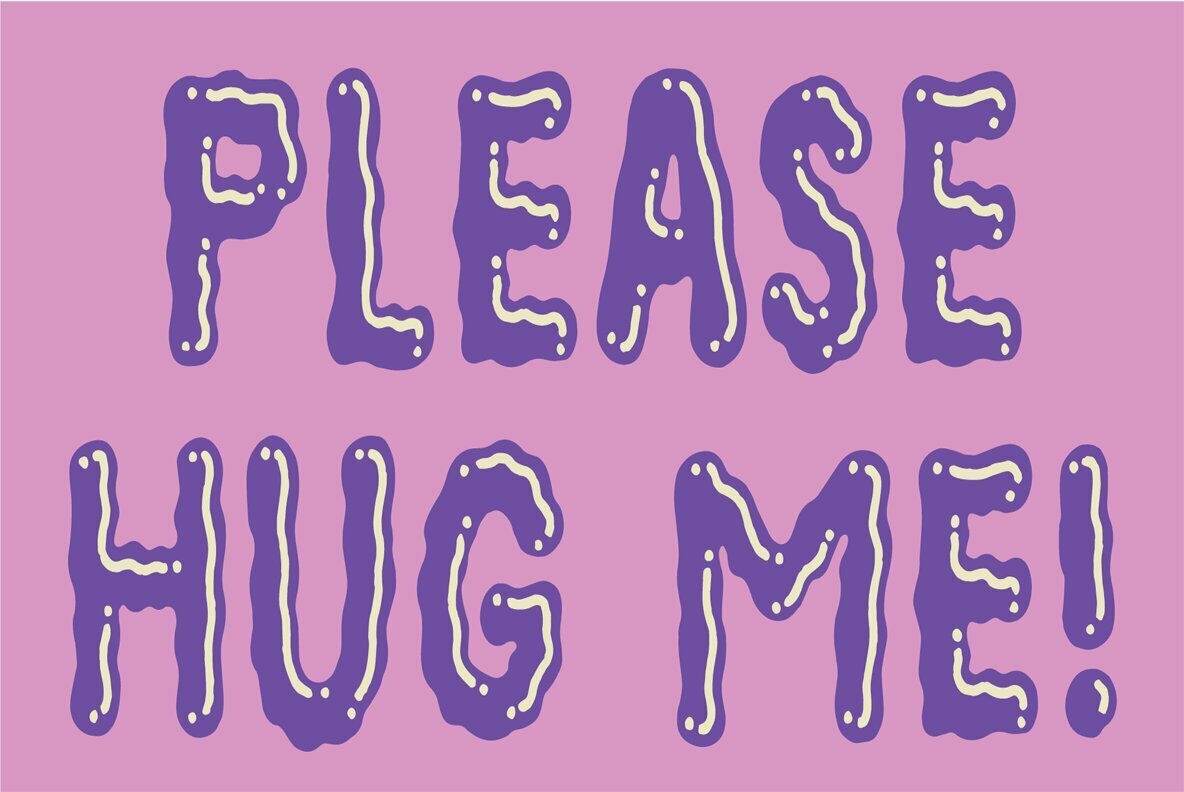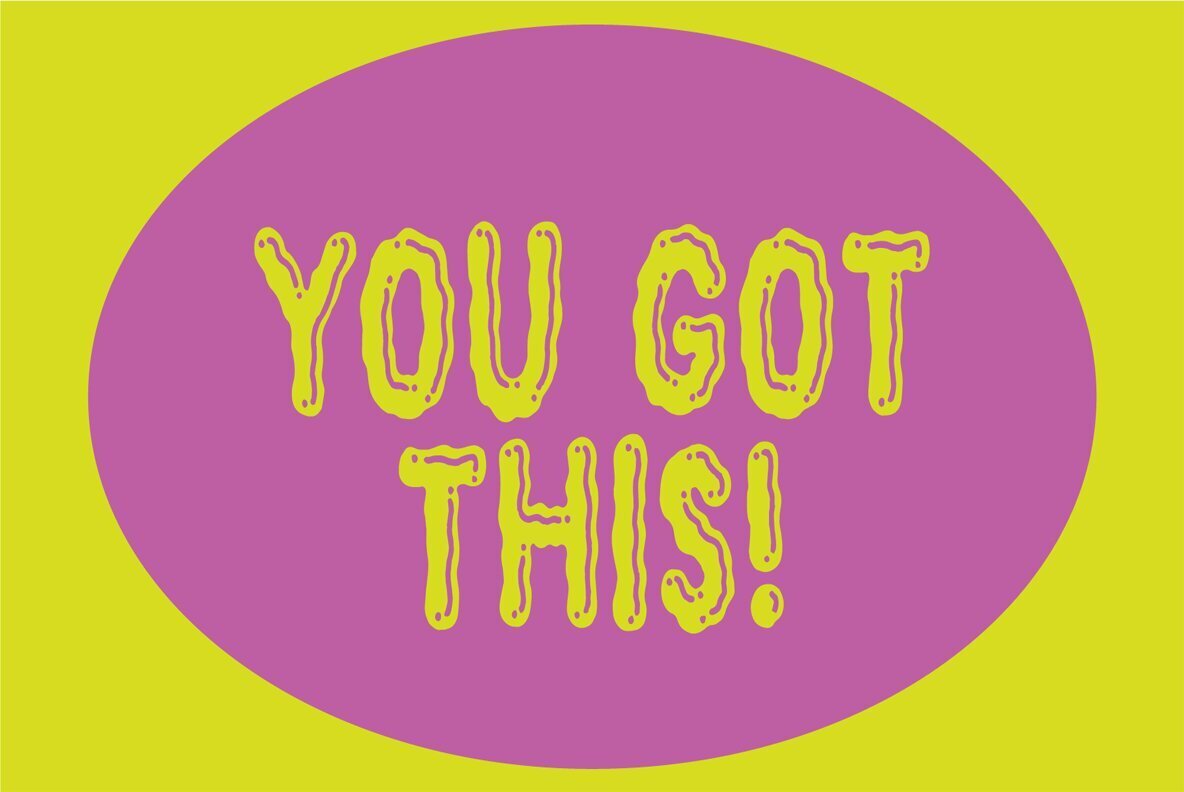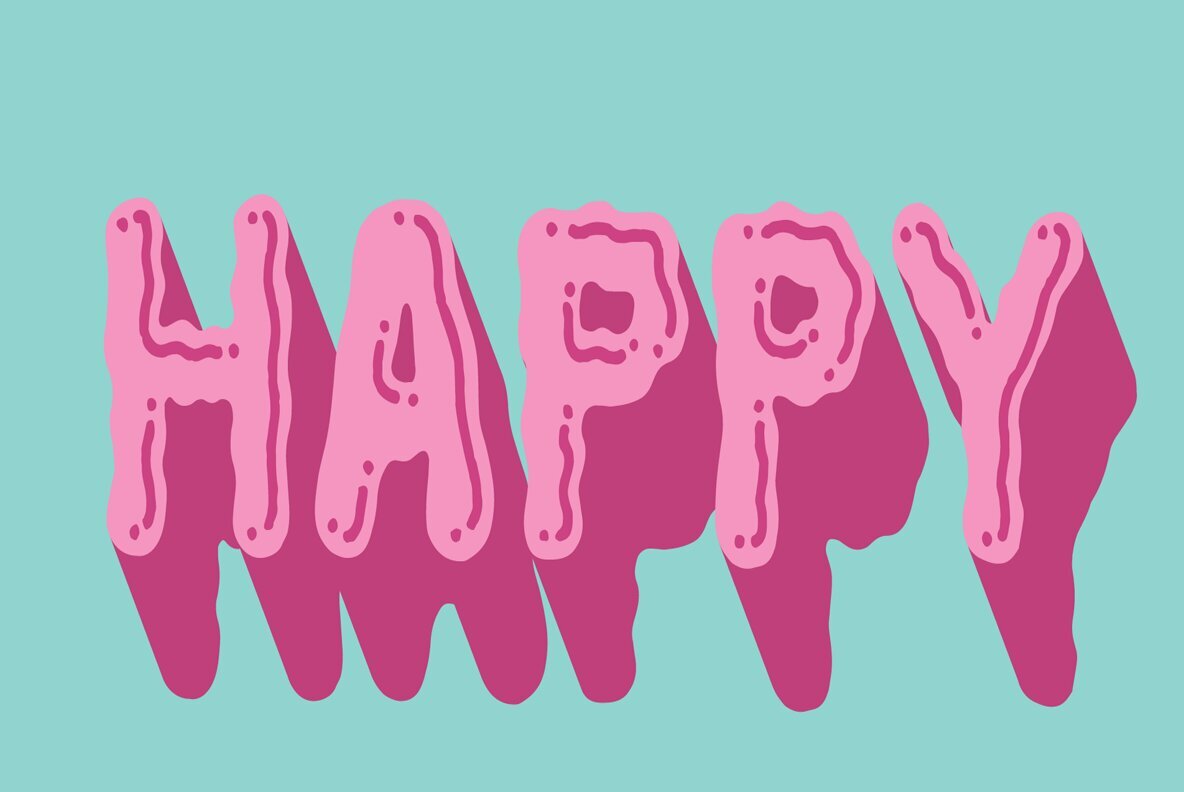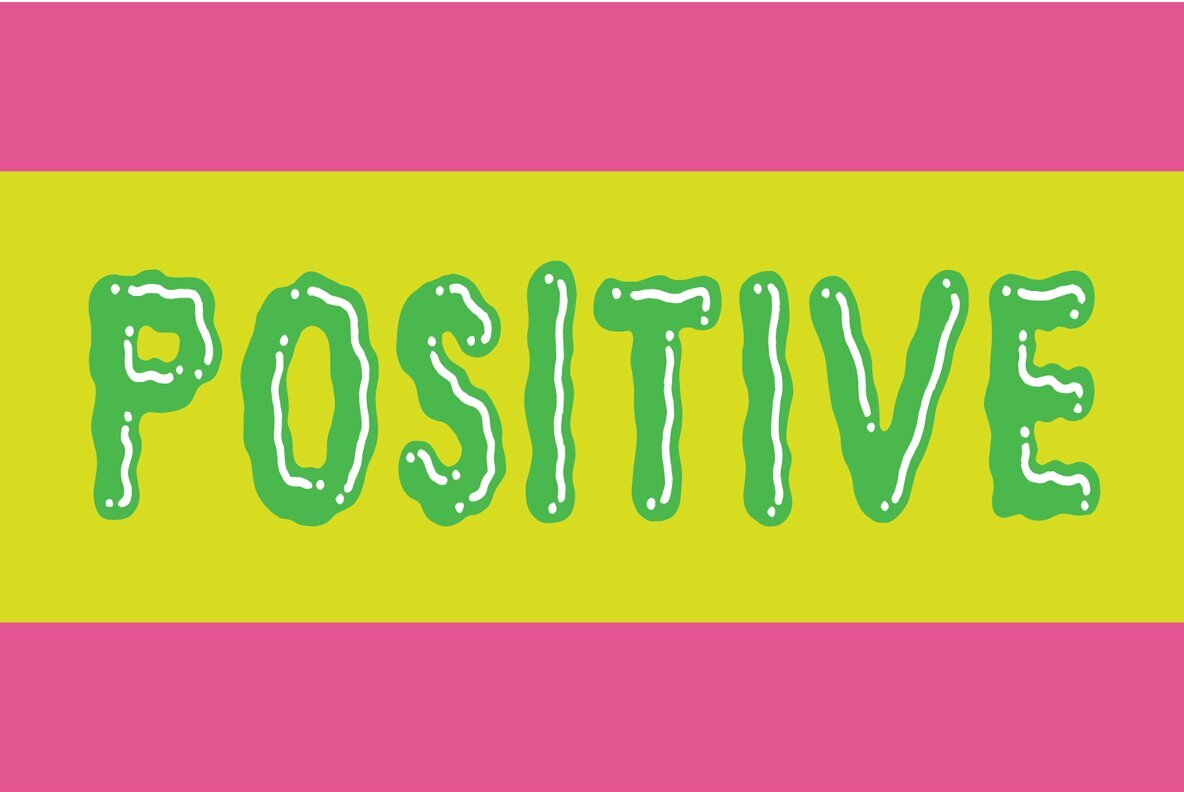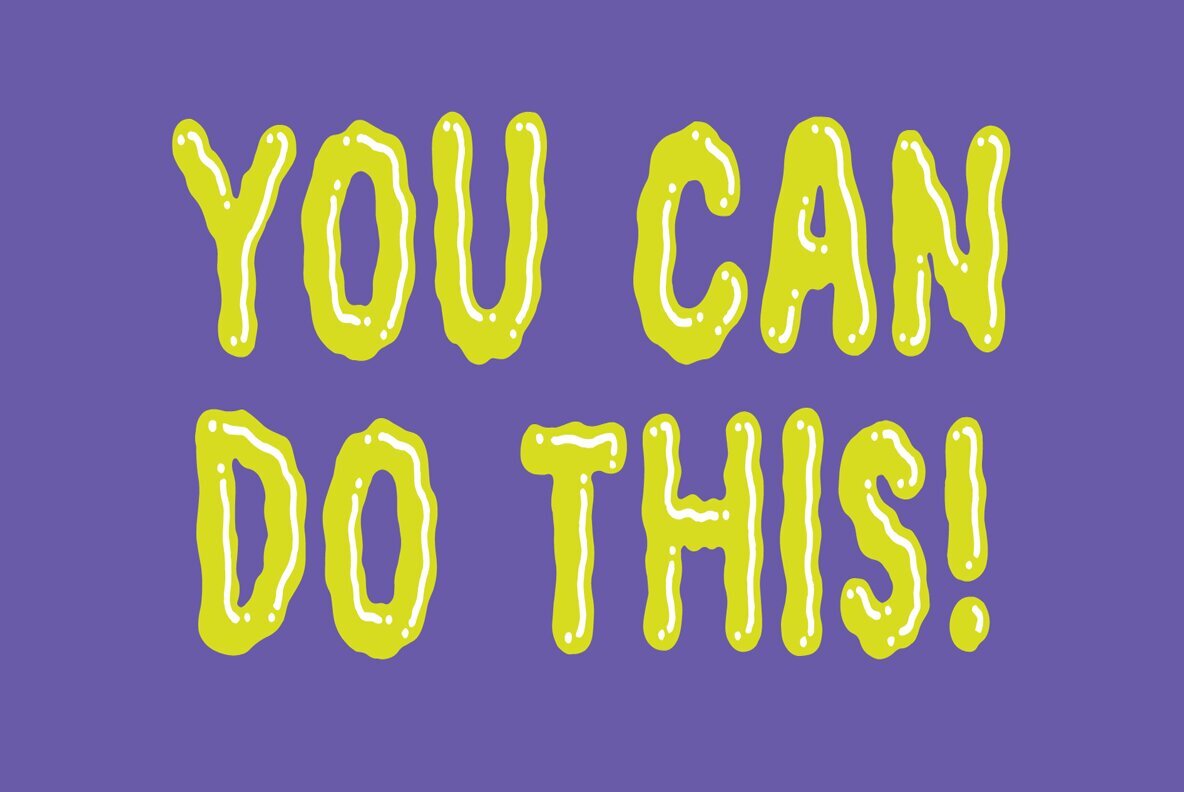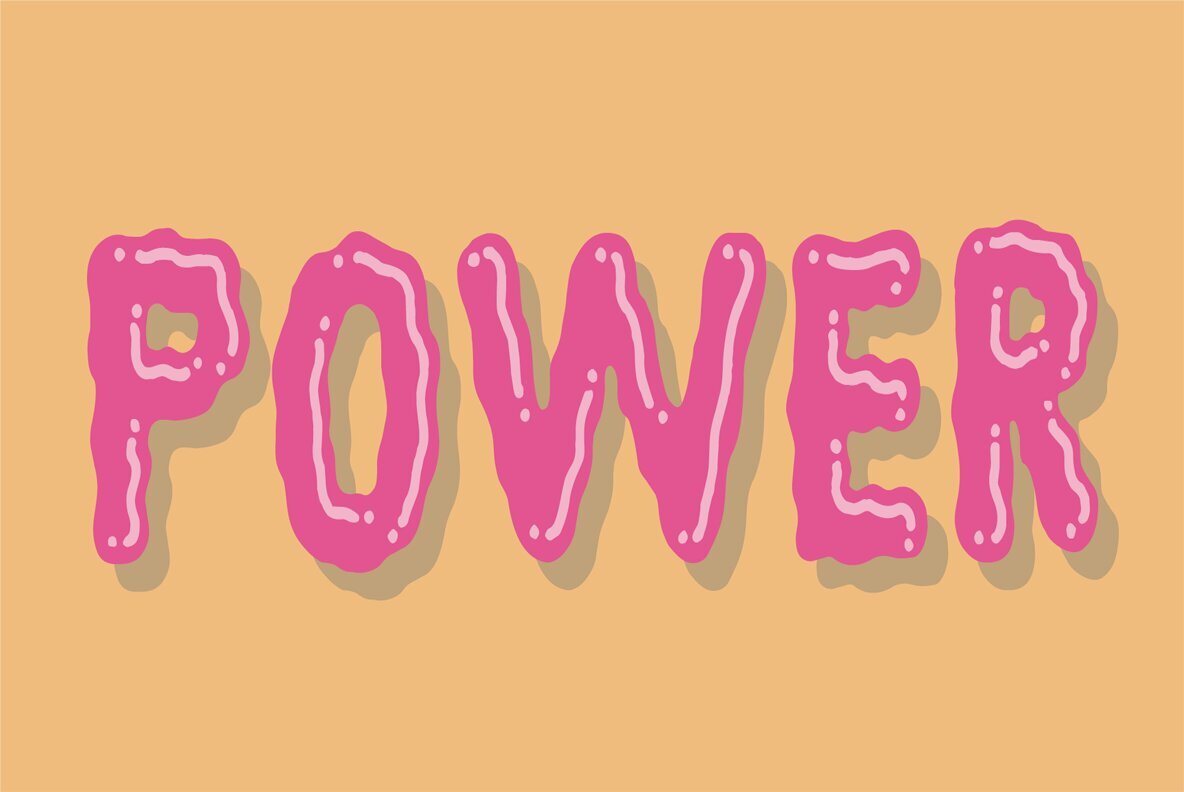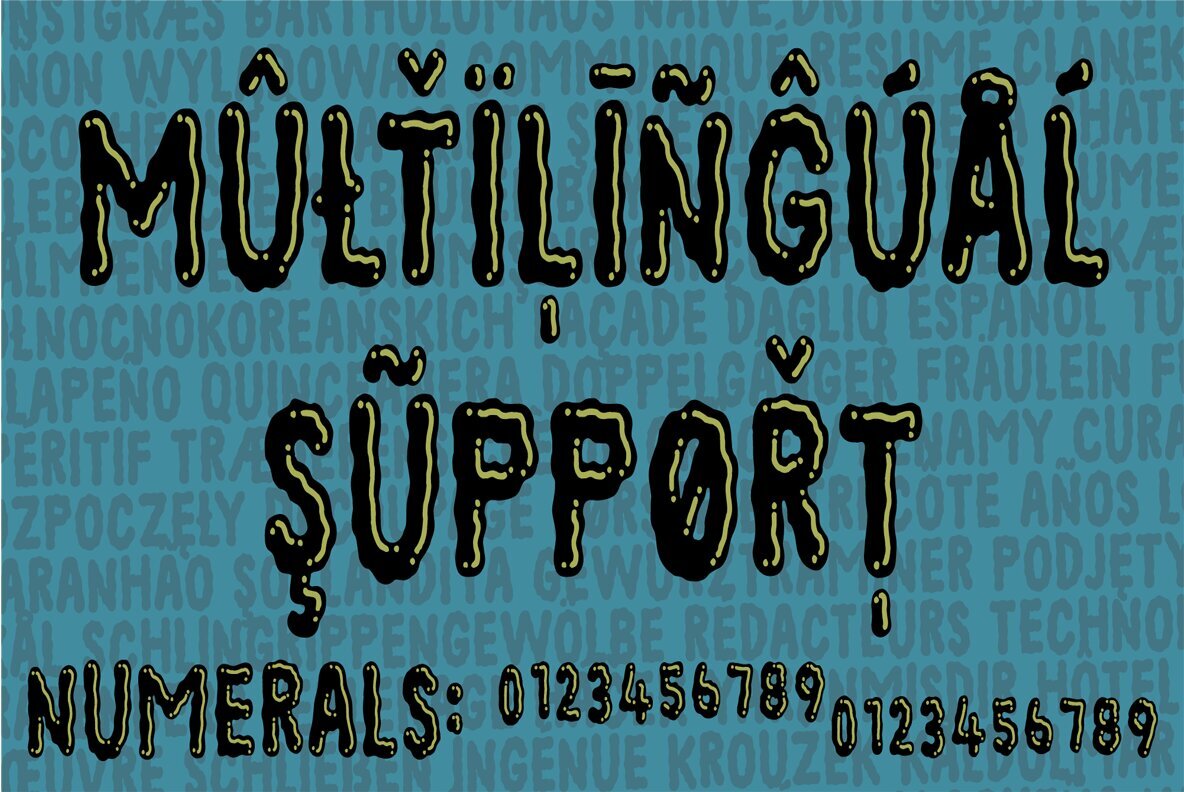
Floyal Rush Font
Floyal Rush Regular
Floyal Rush Shine
Floyal Rush Solid
Floyal Rush is 100% handmade, it’s organic looking and super friendly in a funky wobbly way! Although inspired by grafitti, Floyal Rush has got this cartoon and whimsical vibe to it. I don’t know about using Flyal Rush for massive text, but I would suggest short words and shout-outs - but I dare you! Go ahead and challenge me! I have added 3 versions, which fit together: Solid, Shine and Regular.